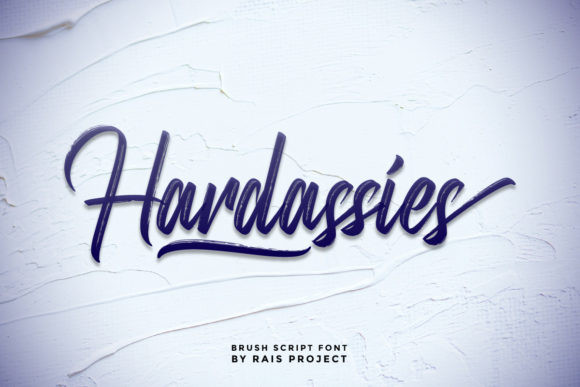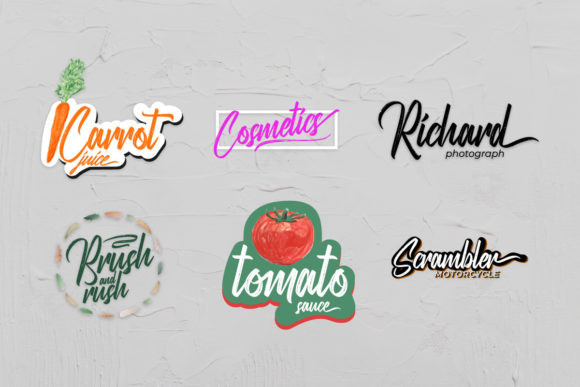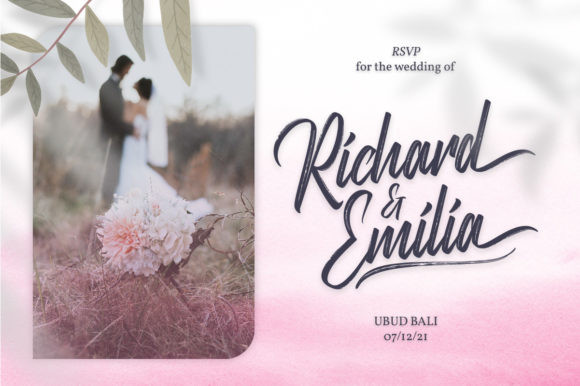
Hardassies Font
Hardassies is a gorgeous and cursive brushed handwritten font, crafted to give your headlines and logotype projects a stylish touch. This font reads as strong, confident, and dynamic and can add tons of nostalgic character to your designs. Hardassies is PUA encoded which means you can access all of the glyphs and swashes with ease!